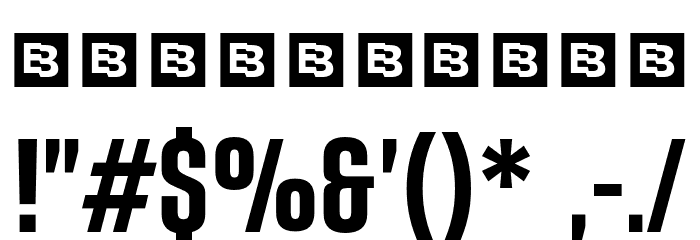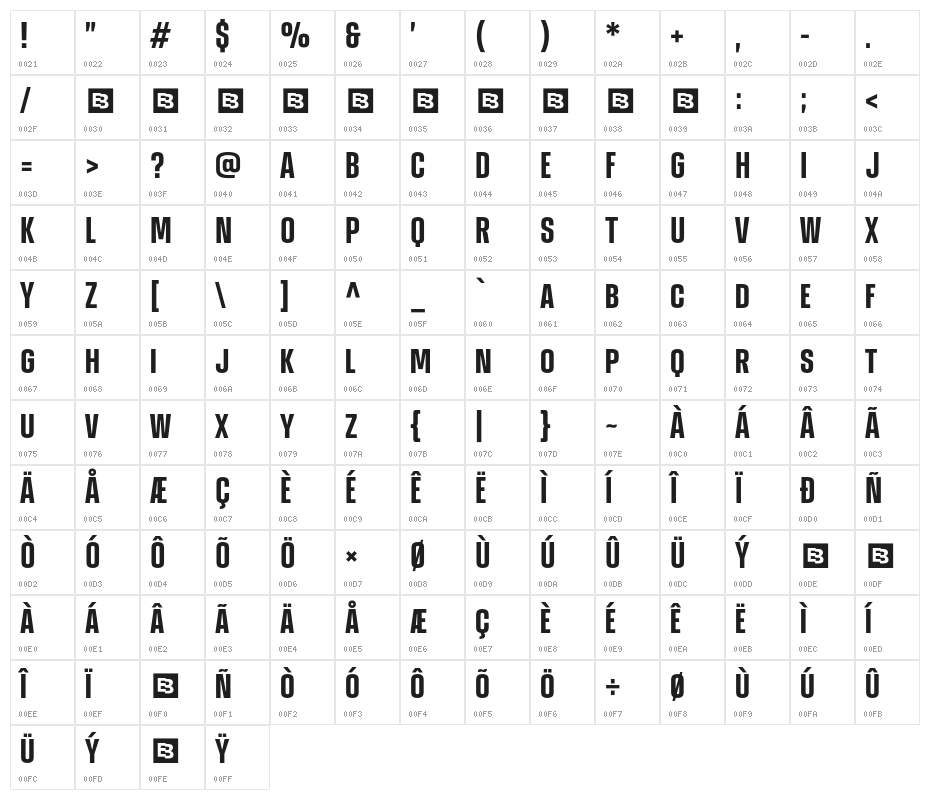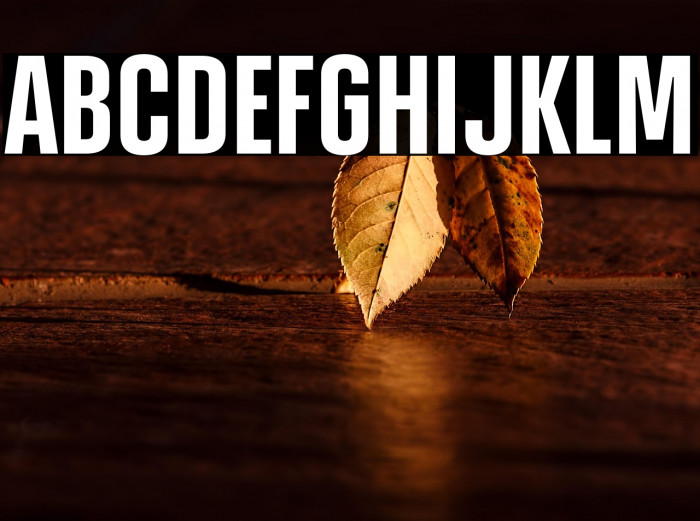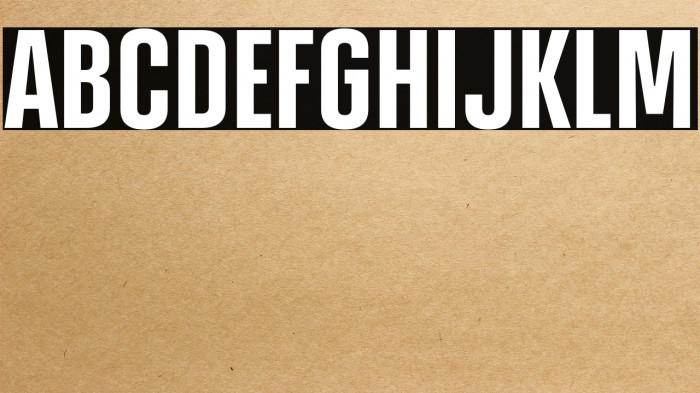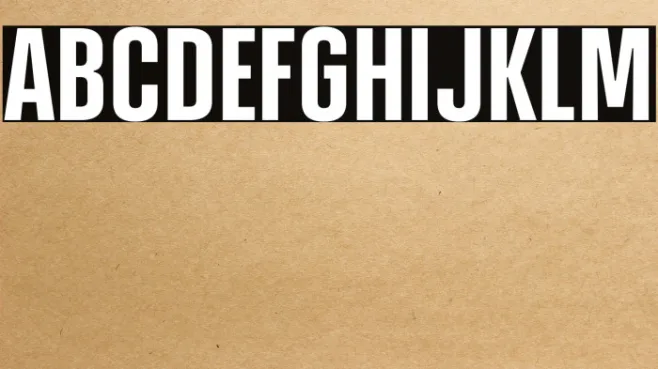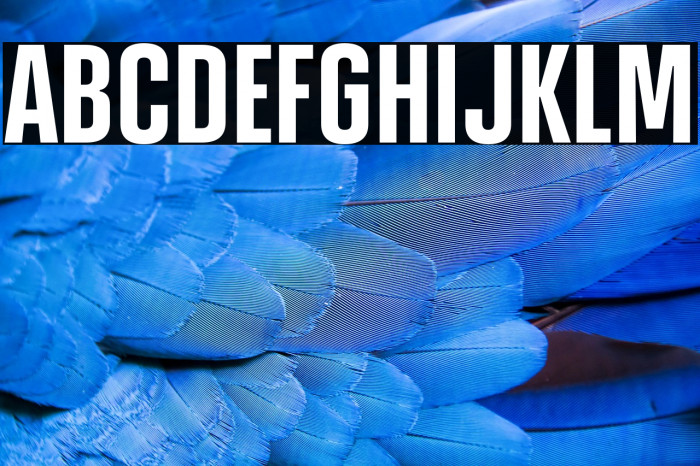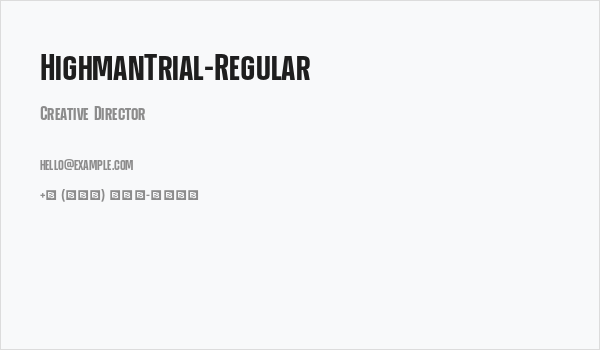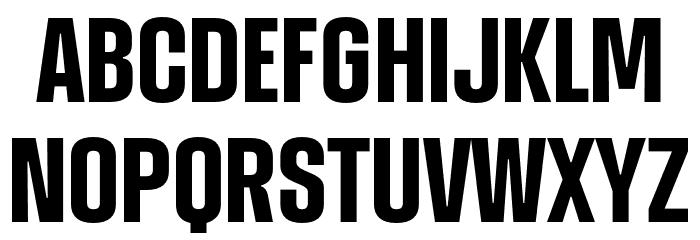
HighmanTrial-Regular Font
HighmanTrial-Regular Description
This font exhibits a bold and impactful design, characterized by its strong, thick strokes and uniform line weight. The uppercase letters are particularly striking, with a geometric and structured appearance that conveys a sense of authority and modernity. The characters are tightly spaced, enhancing the boldness and making it ideal for attention-grabbing headlines. The font's clean lines and lack of serifs contribute to its contemporary and professional look, making it versatile for various design applications. The special characters maintain the same bold aesthetic, ensuring consistency across all text elements.